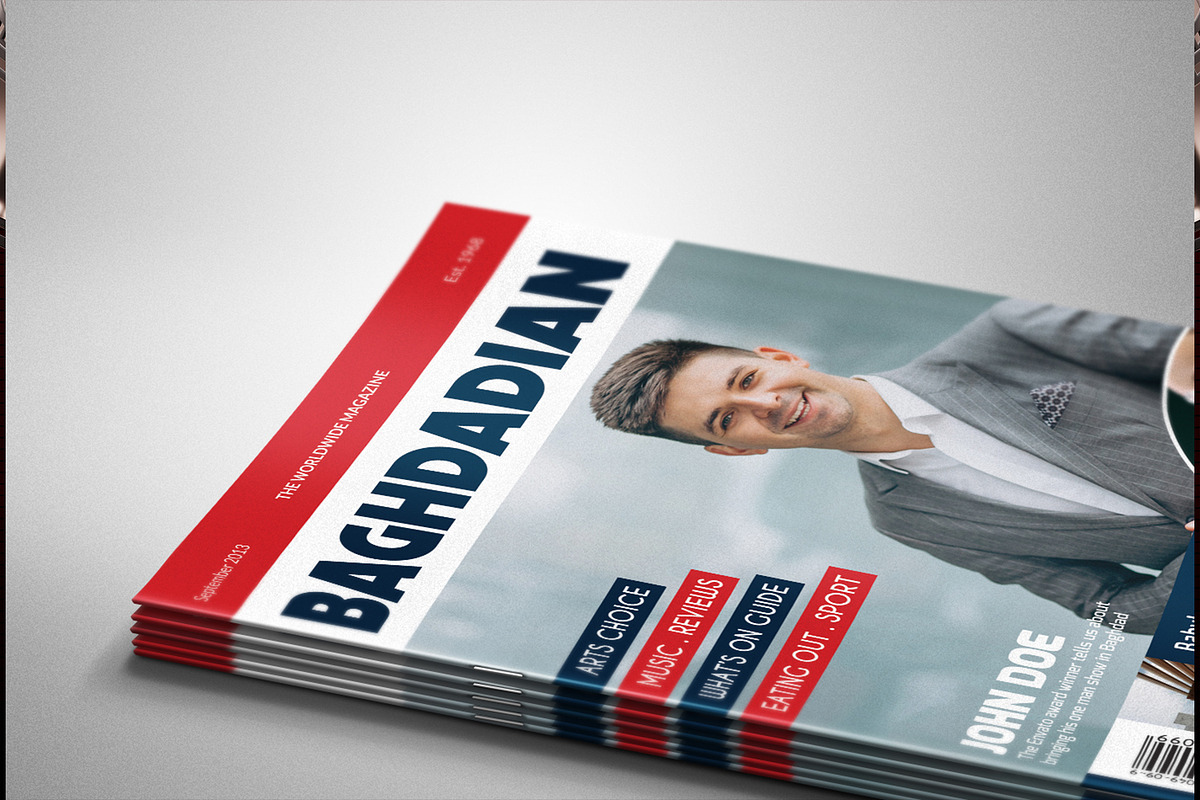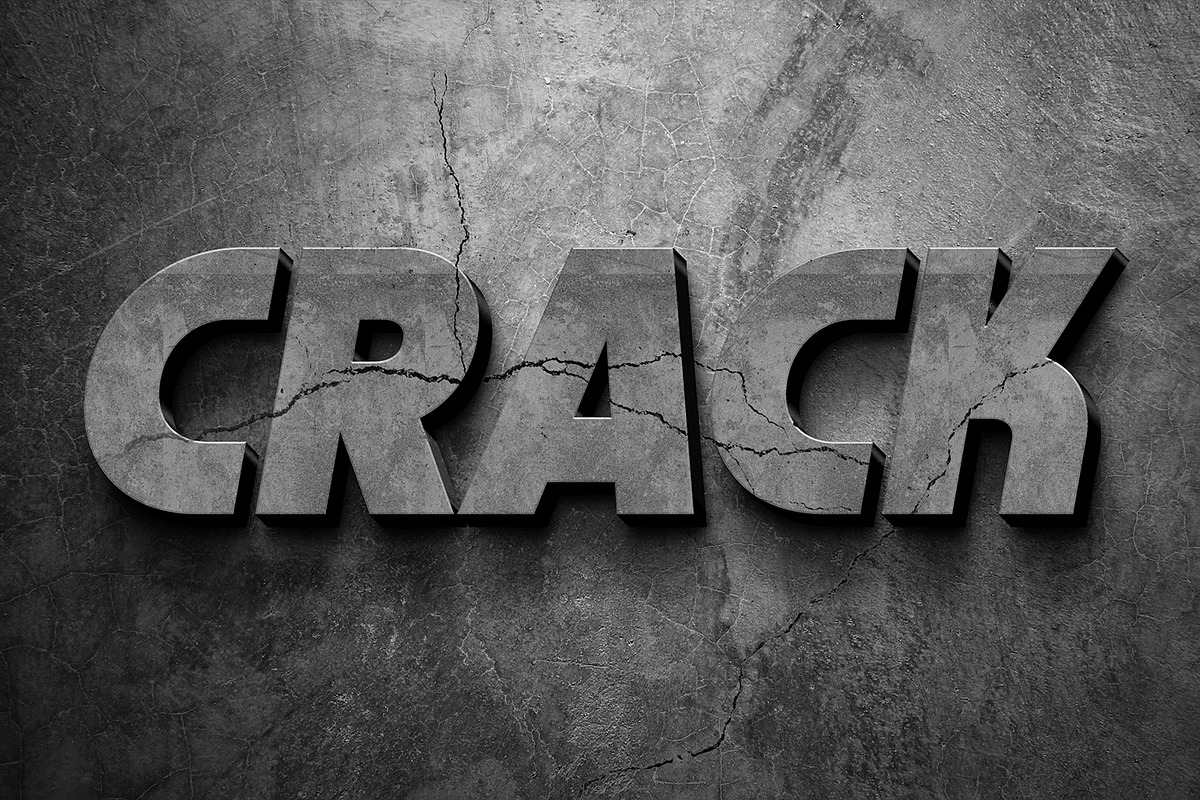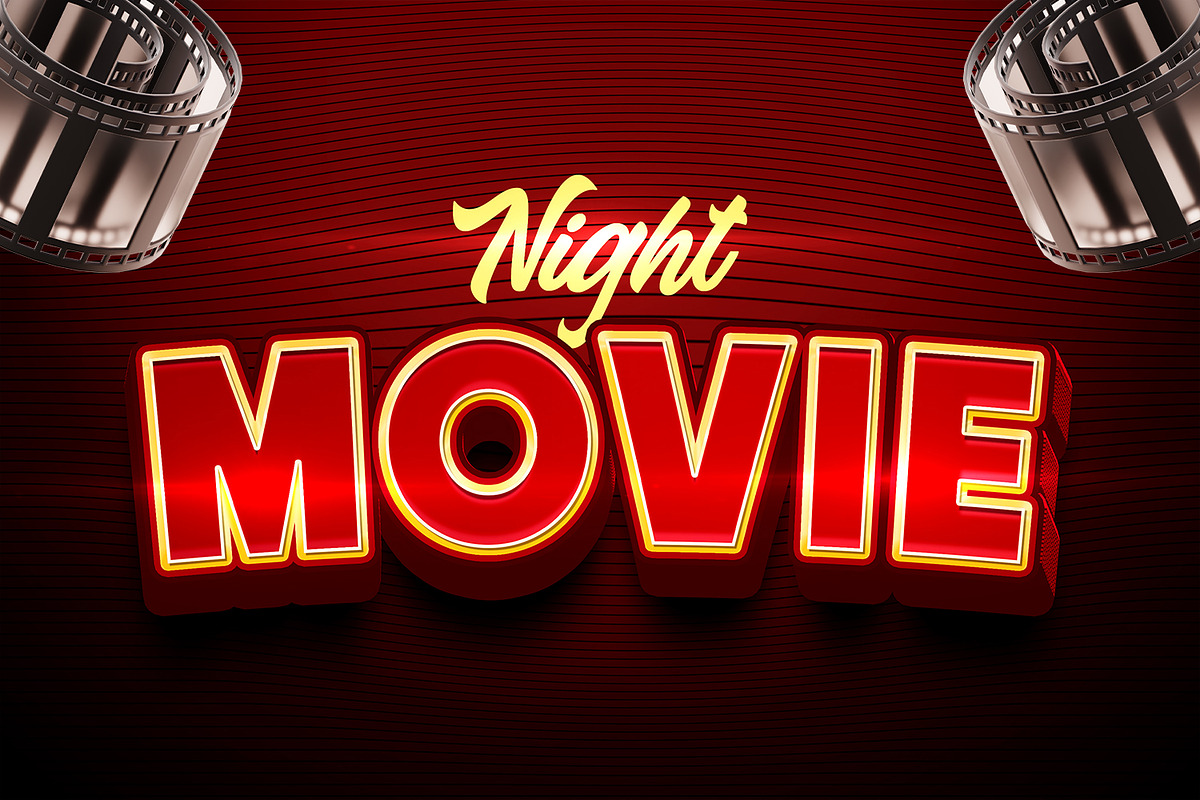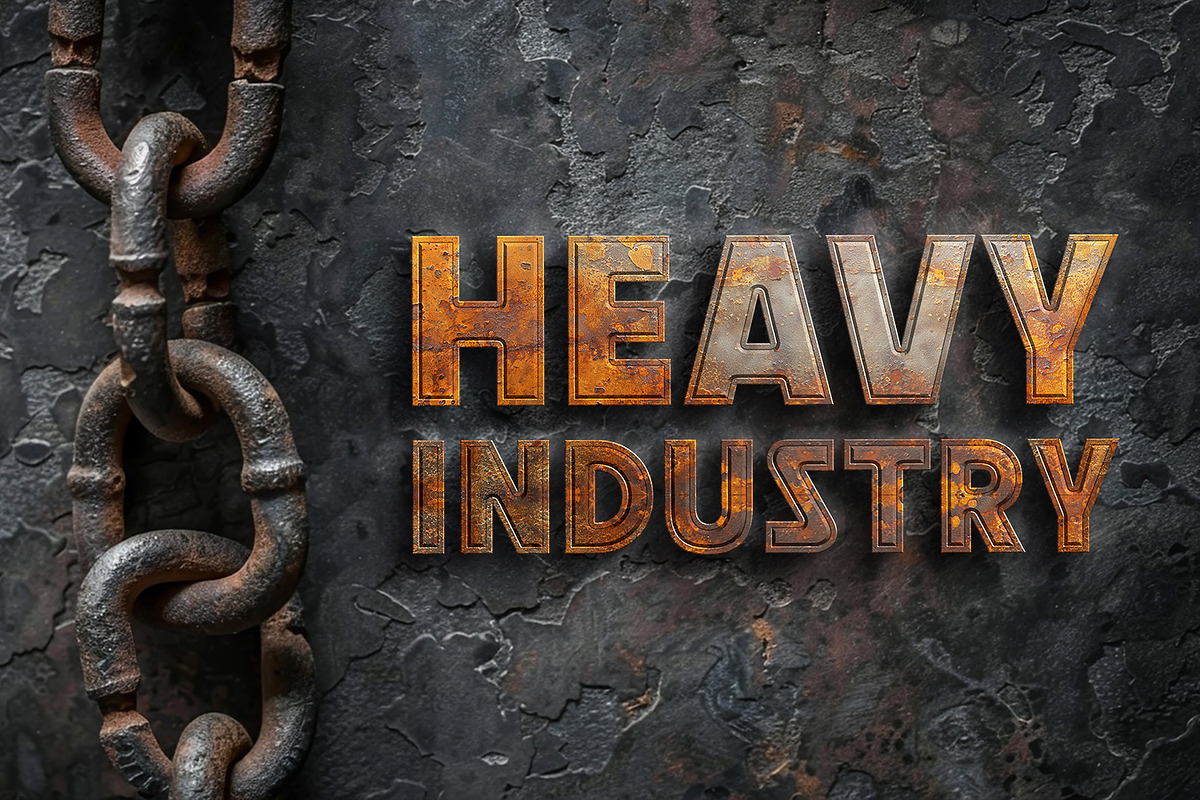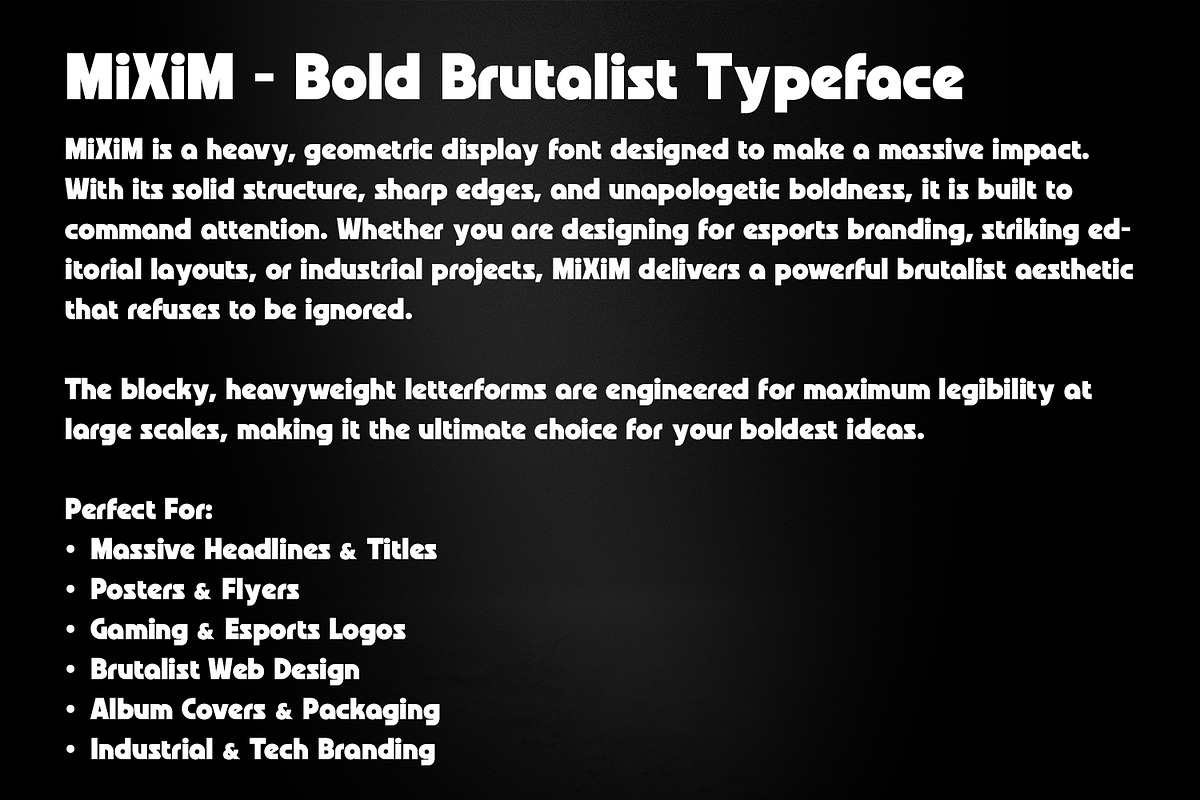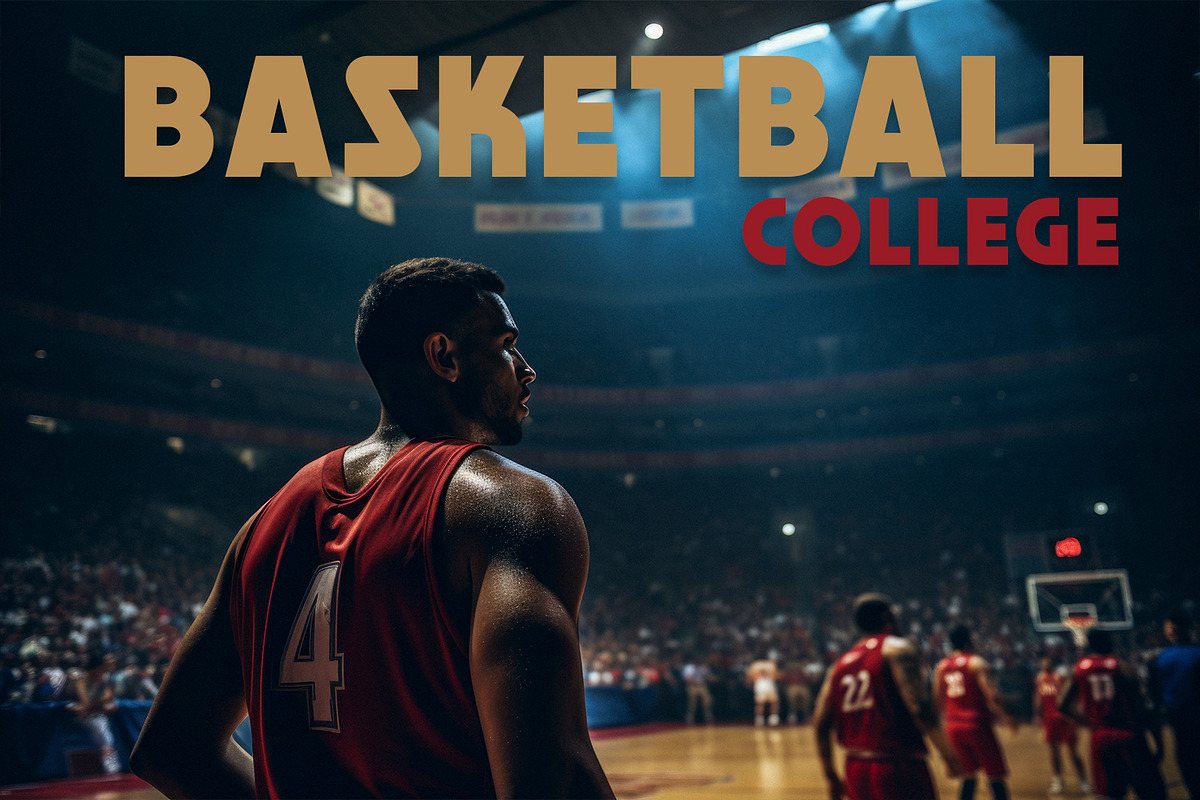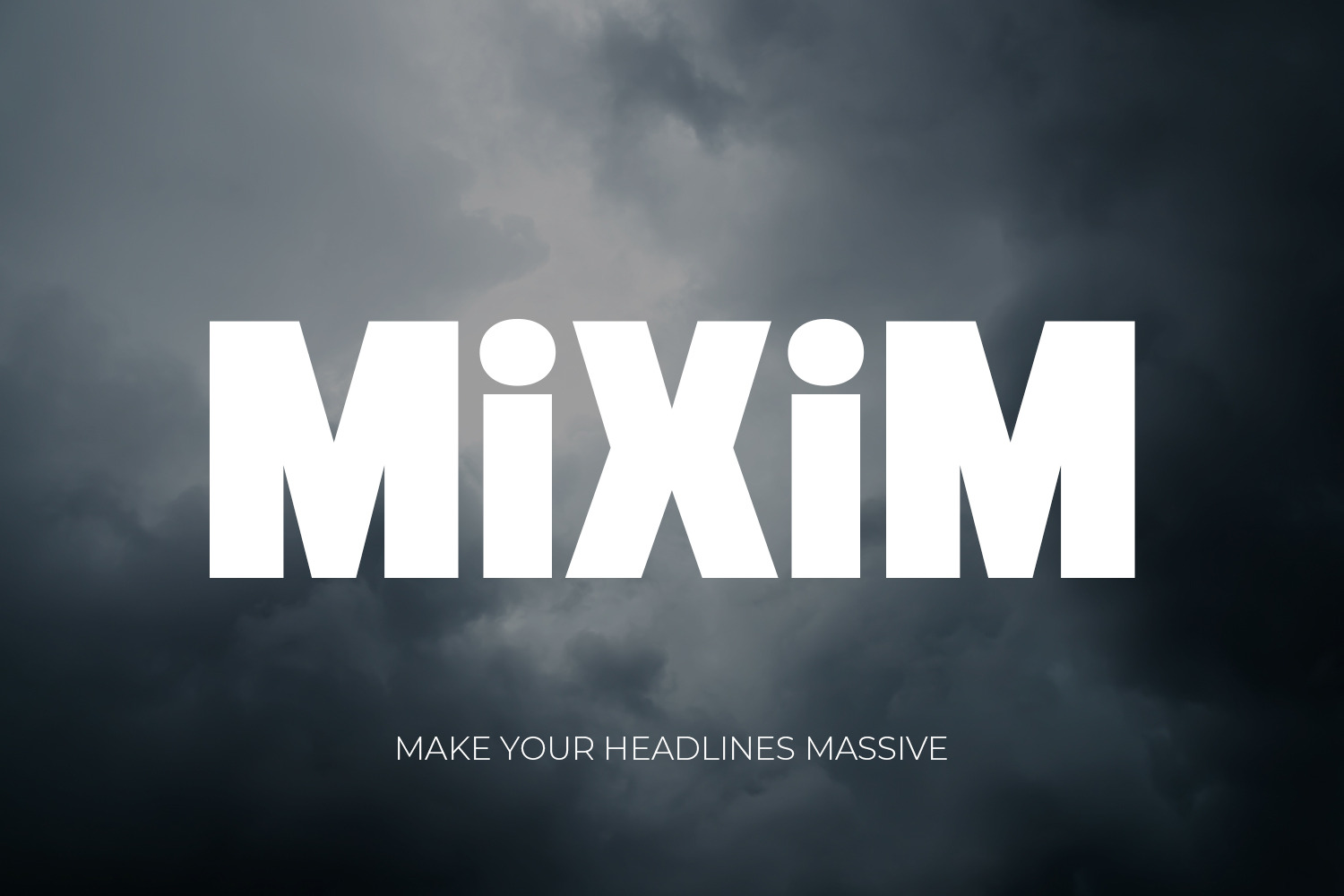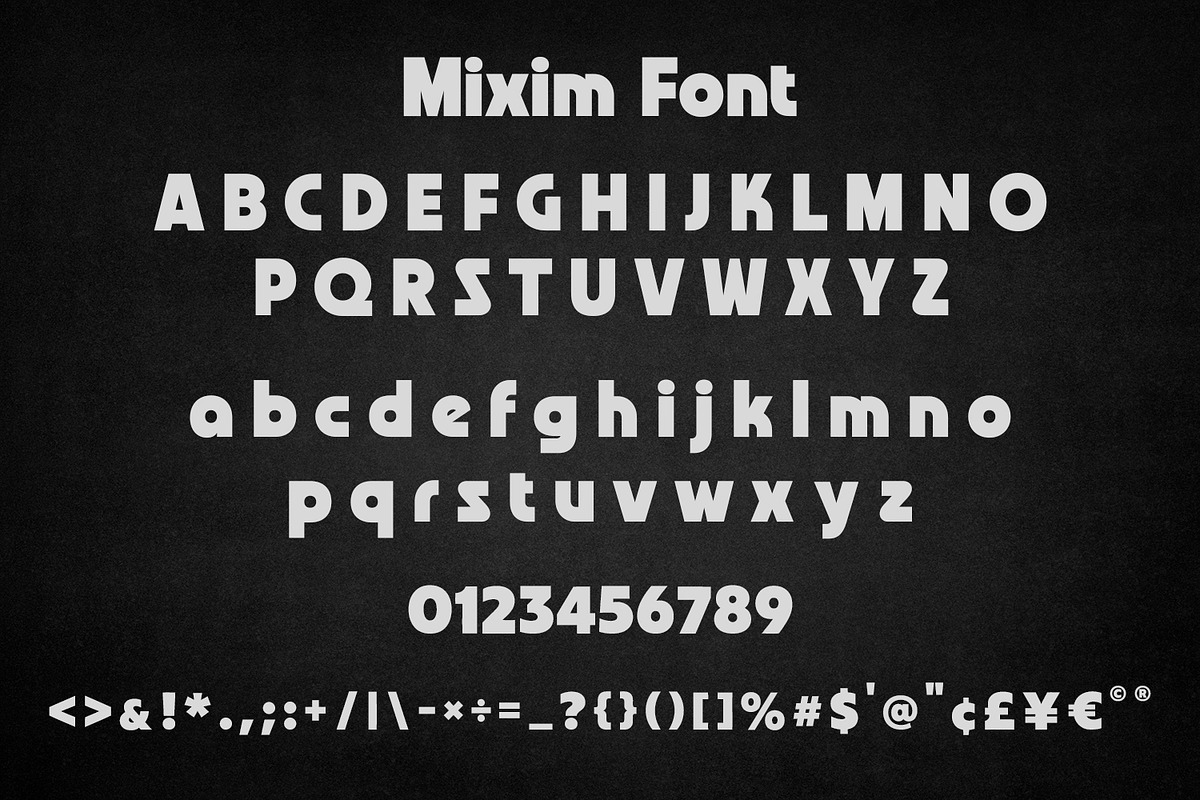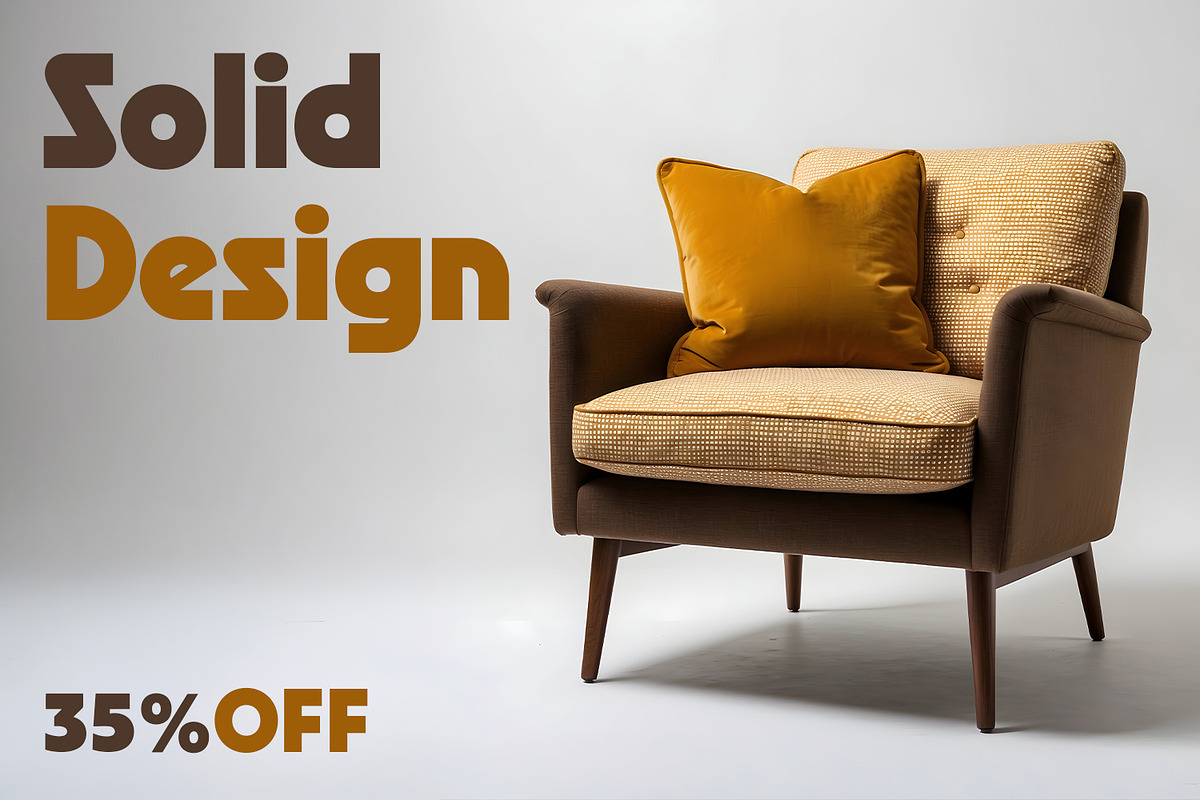
MiXiM - Bold Brutalist Display Font
MiXiM is a heavyweight, geometric display font engineered for massive visual impact. With its solid structure and striking brutalist aesthetic, this typeface is built to command attention. It is the perfect choice for giant headlines, industrial branding, sports graphics, gaming logos, and bold editorial layouts. MiXiM delivers a raw, uncompromising power to your designs, ensuring your message stands out with absolute strength and clarity.